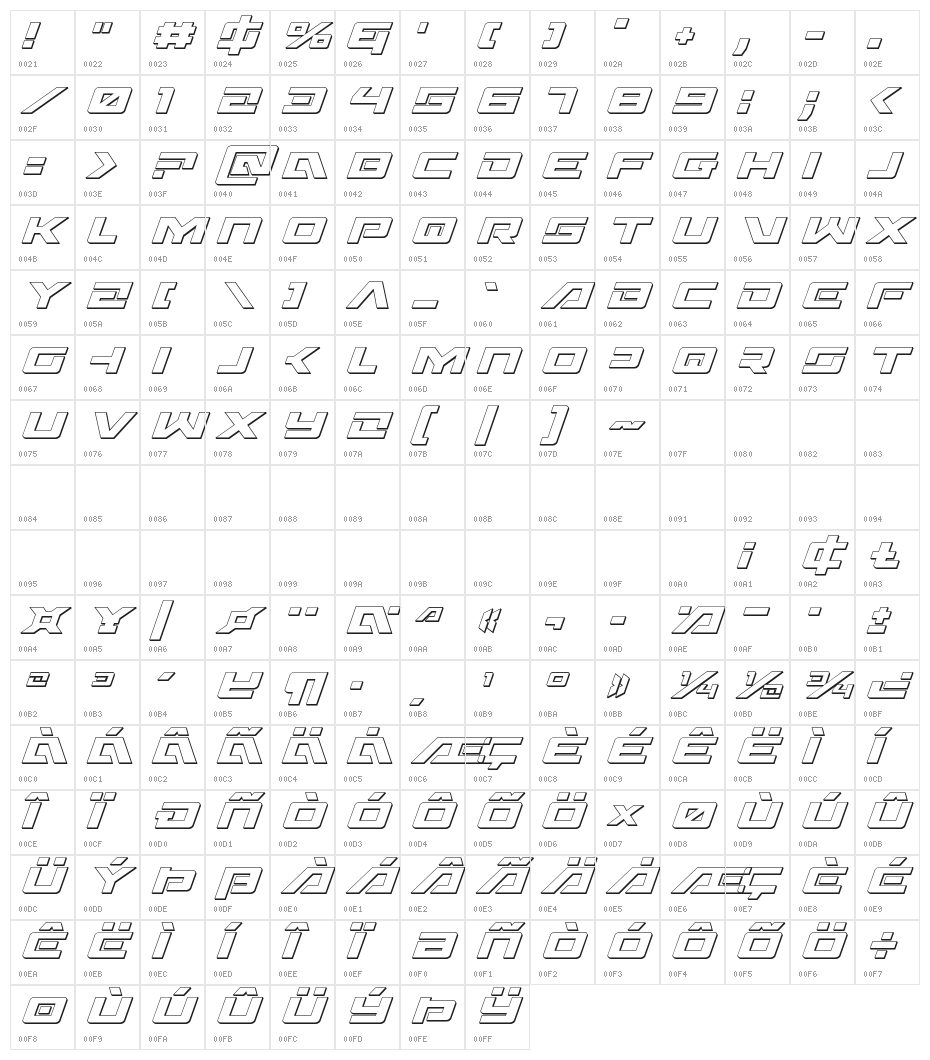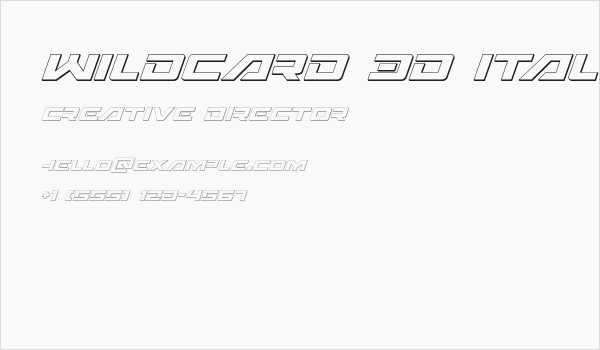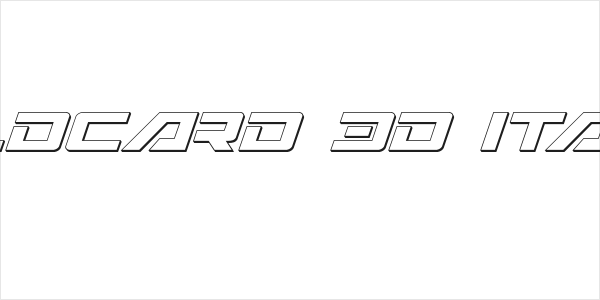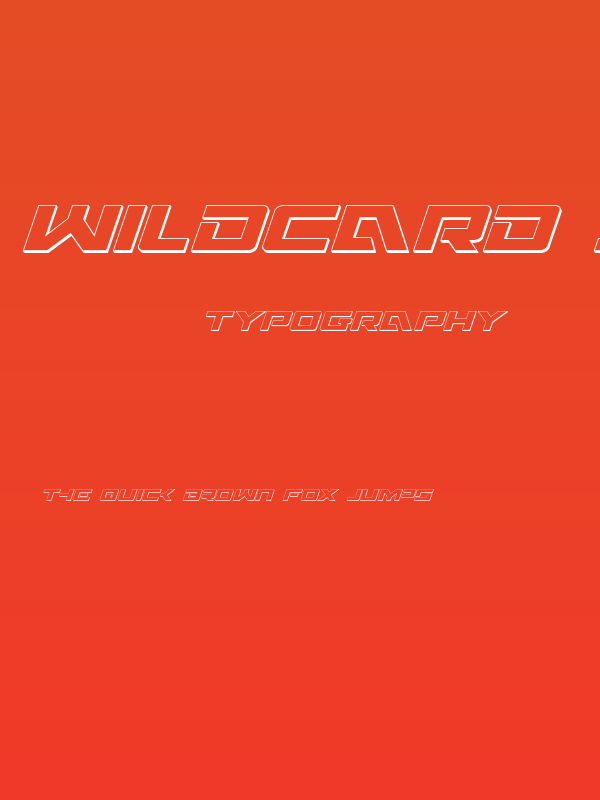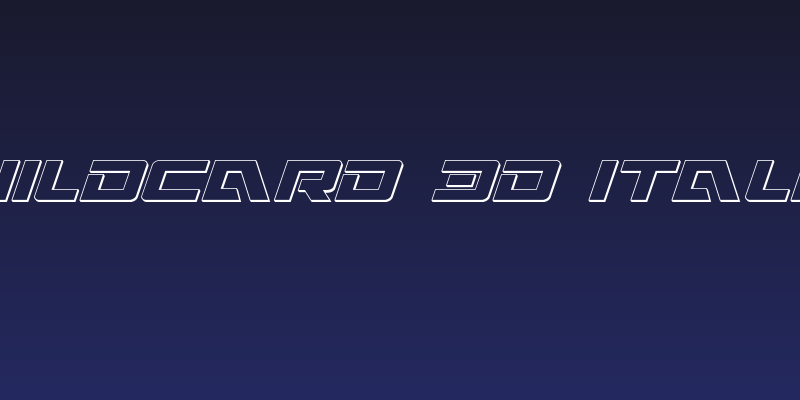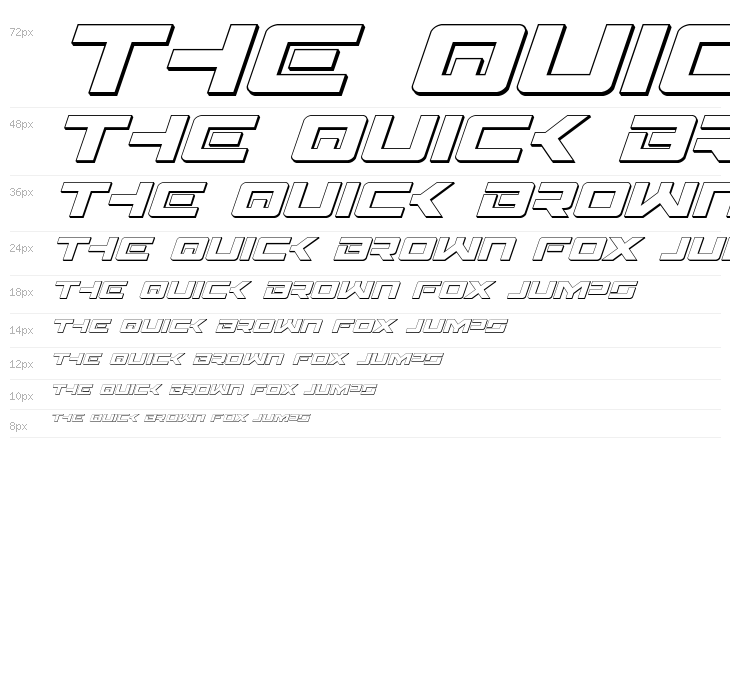
Wildcard 3D Italic Font
Wildcard 3D Italic Description
This font features a bold, futuristic design with a three-dimensional effect that gives it a dynamic and modern appearance. The characters are outlined, creating a sense of depth and movement. The angular and geometric shapes of the letters contribute to its contemporary style, making it stand out. The italic slant adds a sense of speed and forward motion, enhancing its suitability for projects that require a sense of innovation and progress. The font's unique style is ideal for eye-catching headlines and logos.
| Proposed Projects | Ideal for technology branding, sci-fi movie posters, video game titles, and innovative product packaging. |